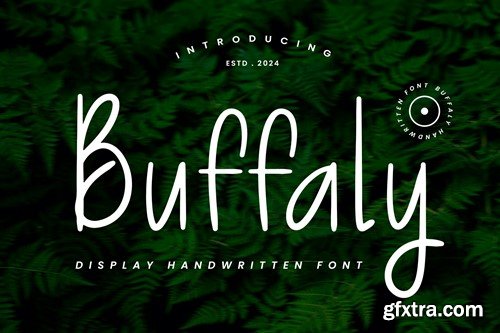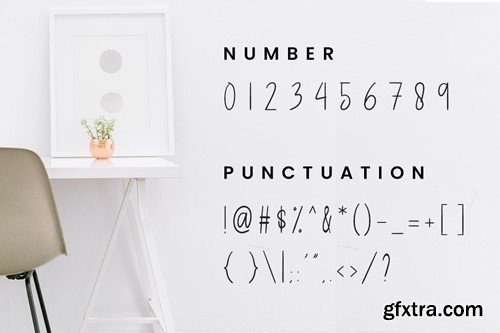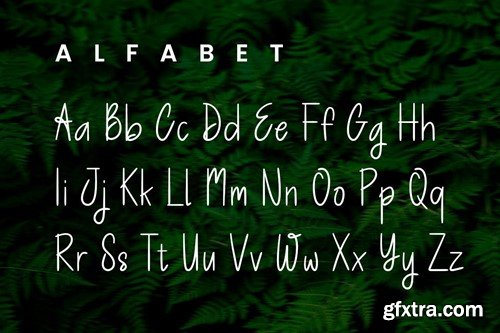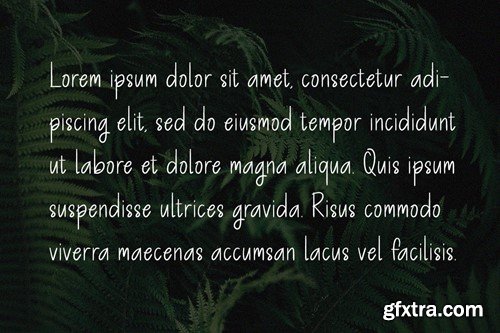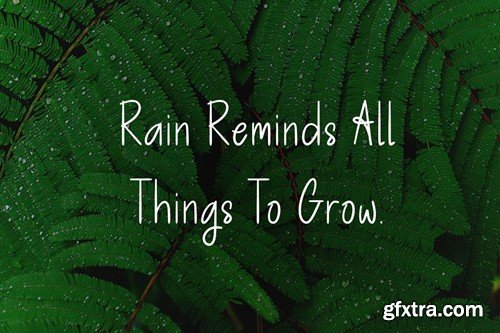
Buffaly - Handwritten Font
Buffaly is a unique display typeface perfect for titles, large text, branding, logotypes & graphic design purposes such as posters, pamphlets, and advertisements. This letter font can be a great choice for creating amazing logos, promotional content, and marketing presentations that can bring uniqueness and freshness at its best. FEATURES TTF/OTF/WOFF Uppercase and Lowercase letters Numbering and Punctuations Support Adobe Illustrator, Adobe Photoshop, Adobe InDesign, also works on Microsoft Word For buyers, thank you for using our font. We hope our work can help you create creative ideas.